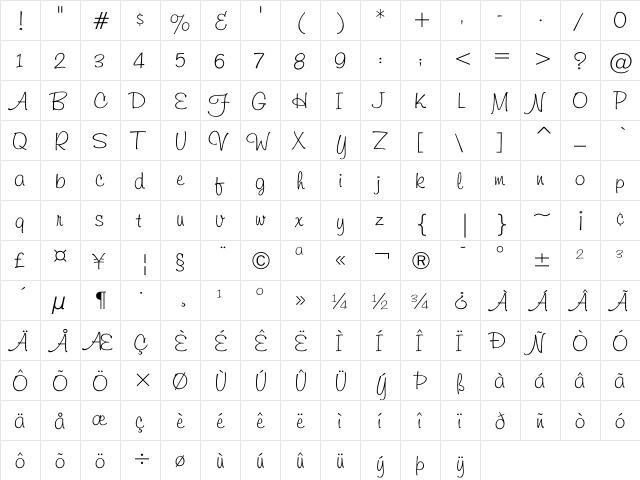
Freehand 591 TM
Design Context for Freehand 591 Typeface
Freehand 591 brings a calligraphic fluidity to the page — its connecting strokes and expressive curves give it an unmistakably human quality.
Font Pairing: Combine Freehand 591 with a simple geometric sans for maximum contrast — the tension between flowing curves and clean structure is a classic typographic pairing.
Pro Tip: Use Freehand 591 for short runs of text — names, titles, or taglines. Extended body copy in script faces tires the eye quickly.